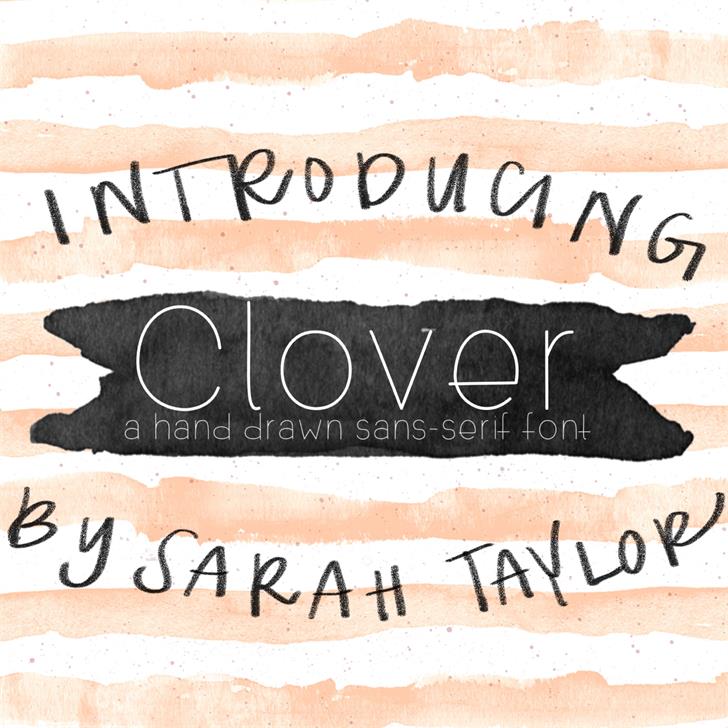
Clover Font
Clover Font — By SarahTaylorDesigns
Clover is a modern take on a simple sans-serif font.
It is perfect for headings as well as body text due to its clean lines and simple design.